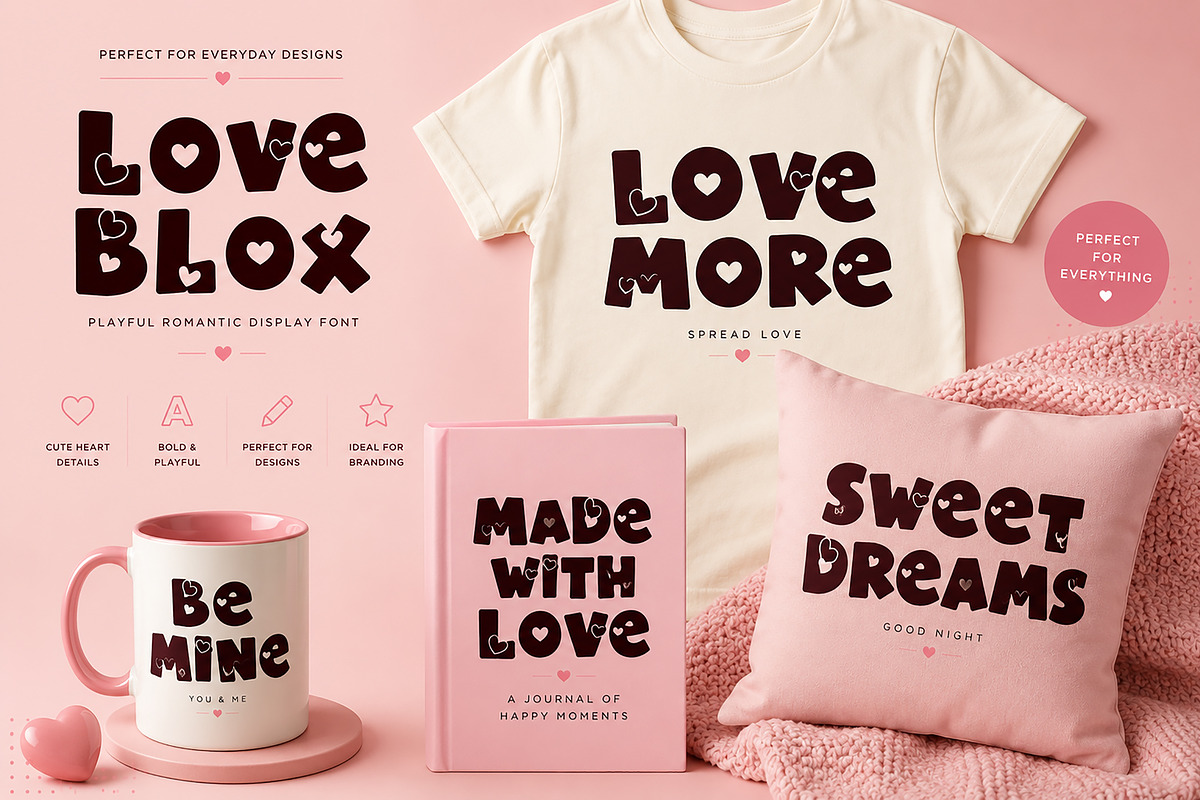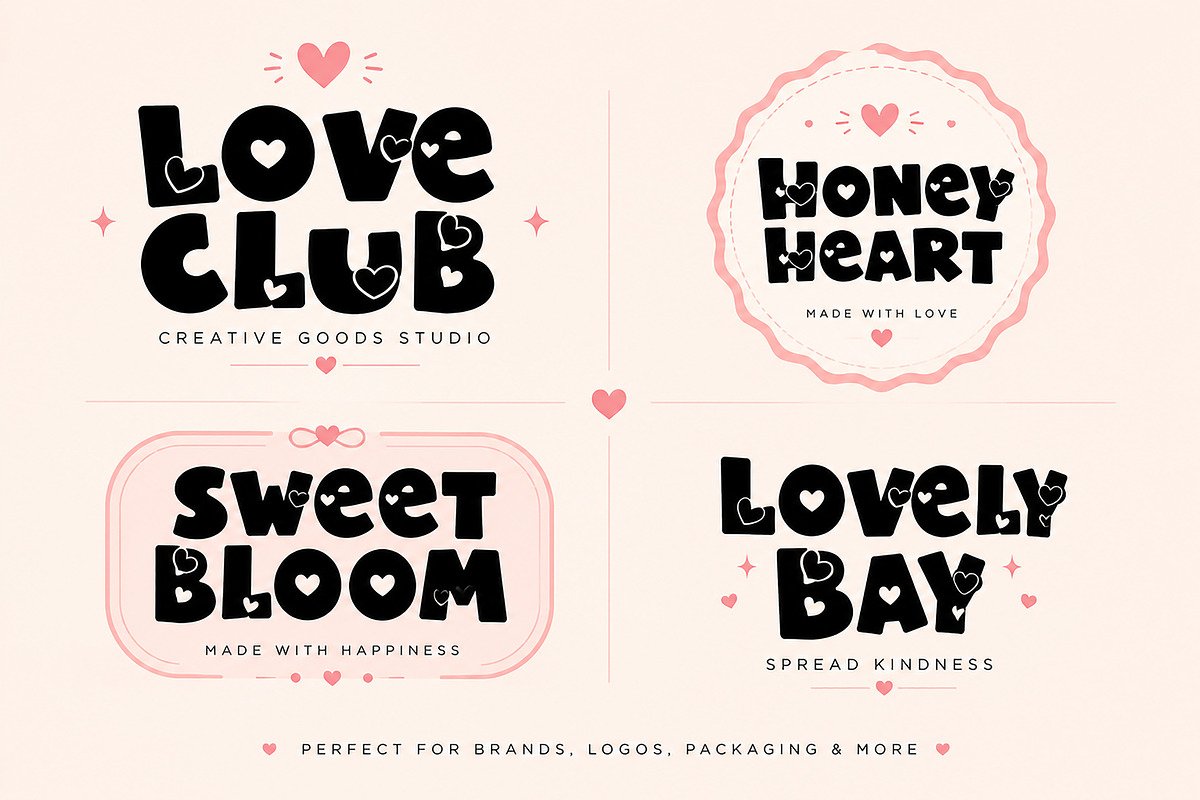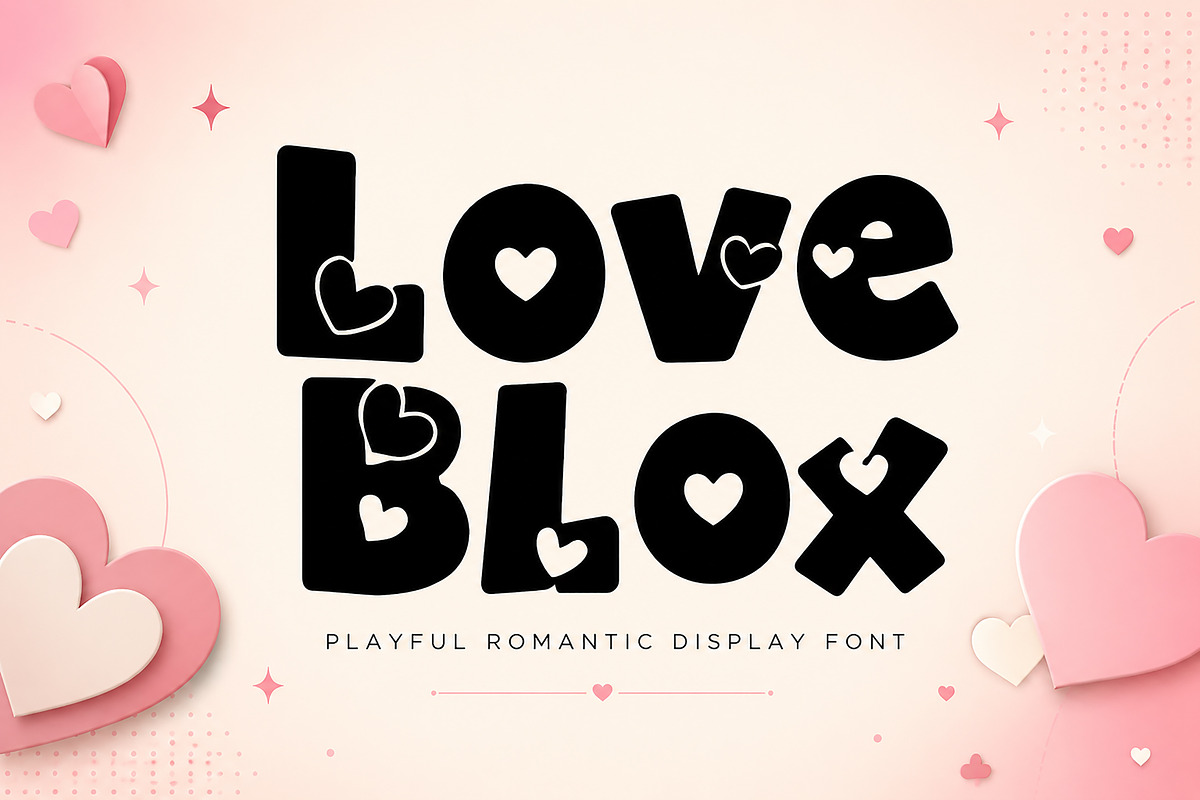
Love Blox
Love Blox – Playful Romantic Display Font
Love Blox is a bold and playful display font designed with charming heart-inspired details and a fun, lovable personality. Its chunky letterforms and decorative heart elements create a distinctive look that is perfect for designs that need to feel cheerful, romantic, and eye-catching.
Whether you’re creating Valentine’s Day artwork, cute branding, merchandise, greeting cards, packaging, or social media graphics, Love Blox brings a sweet and memorable touch to every project. Its strong display style works especially well for large headlines, logos, quotes, titles, and statement typography.
Love Blox is a great choice for designers, crafters, small businesses, and content creators looking for a playful font with a unique romantic character.
Logos & Branding
Valentine’s Day Designs
Romantic Quotes
Greeting Cards
T-Shirts & Apparel
Mugs & Merchandise
Book & Journal Covers
Posters & Flyers
Stickers & Labels
Invitations
Headlines & Titles
Craft & DIY Projects
Bold & Playful Display Style
Charming Heart-Inspired Details
Uppercase & Lowercase Letters
Special Characters
Suitable for Print & Digital Designs
Add a bold dose of love and playful personality to your creative projects with Love Blox.